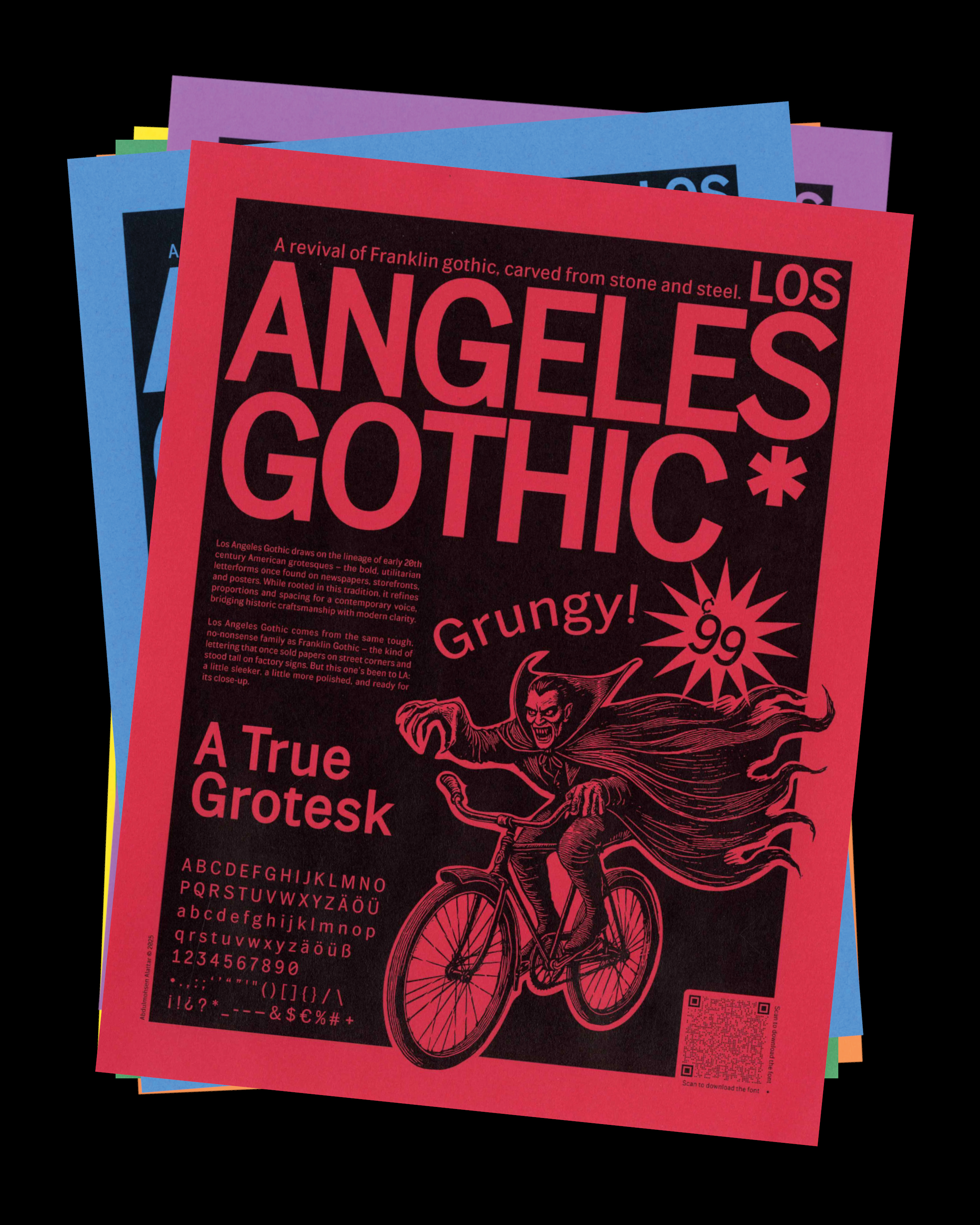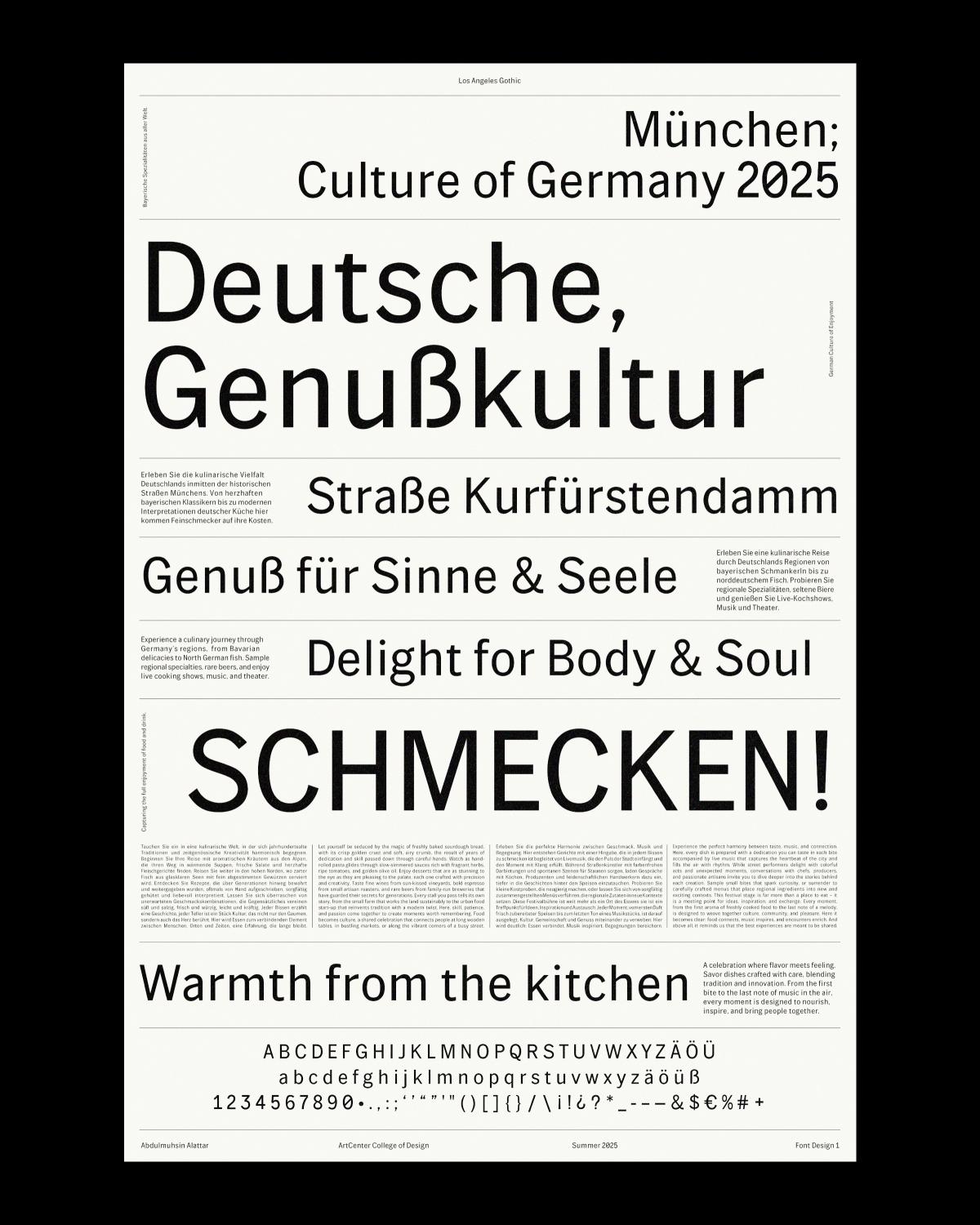
They were also meant to be given to people as a way to promote and share the typeface, inviting them to download and interact with it, because I believe typography should feel alive when it meets people, not just exist in a specimen or on a screen.
This project explores how a typographic voice can reflect both history and place. Los Angeles Gothic is a revival that reinterprets the American Gothic type tradition through a modern lens. The goal was to create a type system that balances the honesty and structure of early 20th-century grotesques with the diversity and rhythm of contemporary Los Angeles.
Los Angeles Gothic is a typeface, a custom-designed set of letters you can use in writing, printing, or on screens. It’s inspired by a bold style of lettering that was common in the United States during the 1900s. These kinds of fonts were used everywhere: newspapers, posters, signs, basically, the visual voice of the early 20th century.
This project brings that classic American lettering style back to life, but with a modern twist. It keeps the strong, straightforward look of the originals, while making the spacing and shapes more balanced for today’s design needs. Whether you’re making a flyer, a brand, or a poster, Los Angeles Gothic is meant to feel both familiar and fresh, like an old soul with a new outfit.
This project sharpened my sensitivity to the micro-details of type, examining how every curve, counter, and terminal contributes to the voice of a typeface. I learned to engineer letterforms with precision, balancing optical correction with structural consistency across styles and weights. Working in Glyphs deepened my fluency in font development tools, and I developed a rigorous process of iteration, spacing, and testing to ensure the type performs in both display and text settings. Ultimately, the project expanded my understanding of what it means to design type not just as form, but as a system.
They were also meant to be given to people as a way to promote and share the typeface, inviting them to download and interact with it, because I believe typography should feel alive when it meets people, not just exist in a specimen or on a screen.